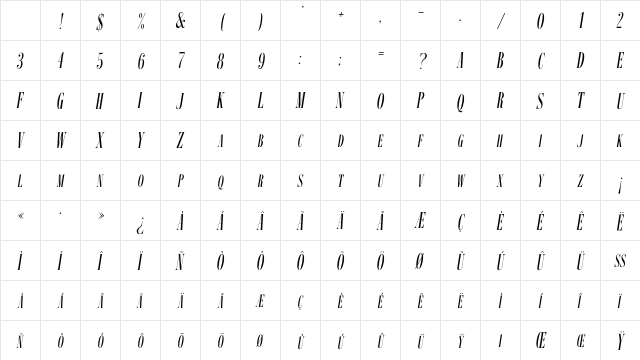
Complete ImprimeurClassiqueEF Obl glyph index. Displaying only characters natively supported by ImprimeurClassiqueEF Obl font.
ImprimeurClassiqueEF is a composed and adaptable typeface that performs quietly and consistently across a wide range of design contexts.